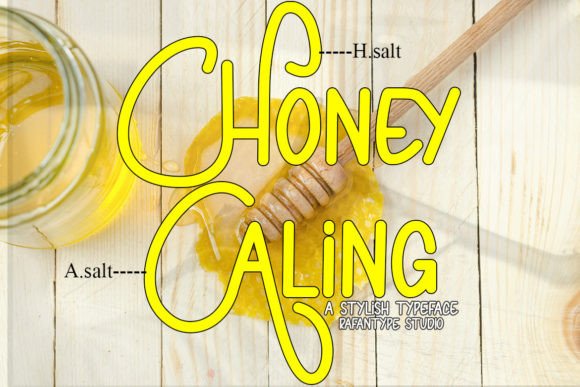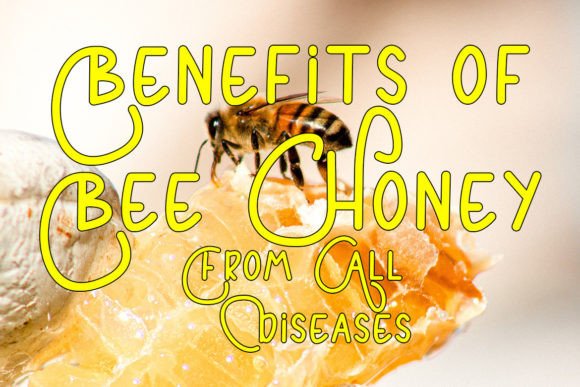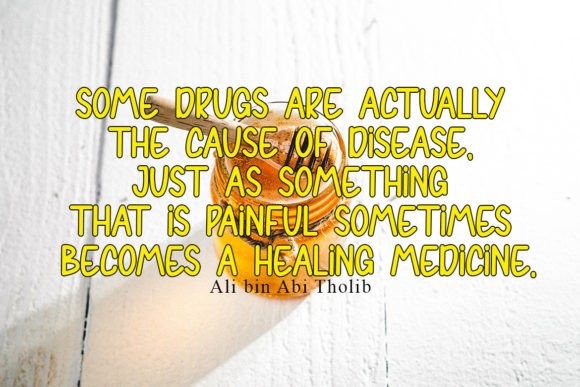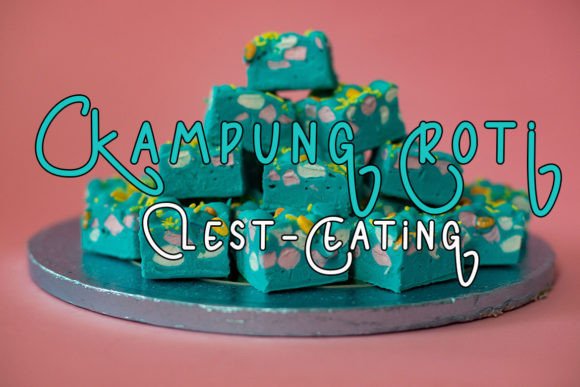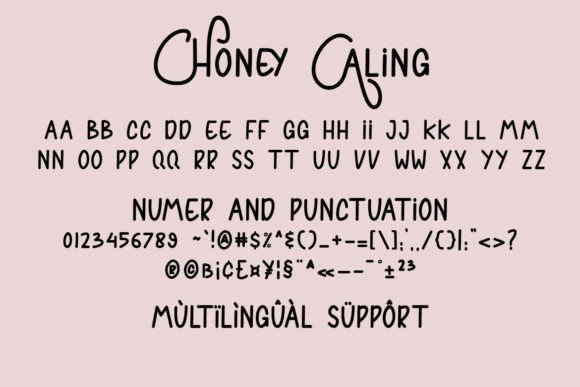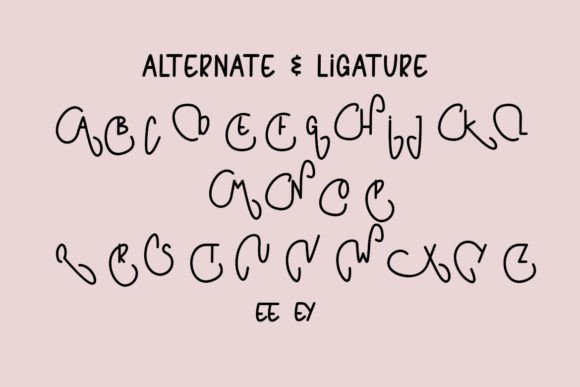
Introduction to Honey Aling Font
Have you ever been working on a creative project, pouring your heart and soul into it, only to feel like something is missing? That’s when I discovered the Honey Aling Font, and I knew I had found the perfect design resource to elevate my work.
This fun and quirky display font is more than just a pretty face – it’s a game-changer for designers looking to add a touch of whimsy and personality to their high-quality designs. With its transparent background and unique swirls around the characters, Honey Aling Font is sure to generate a unique outcome that sets your project apart from the rest.
Key Features of Honey Aling Font
- High-quality design resource suitable for various creative projects, including logos, branding, and typography.
- Comes in a transparent background, making it easy to customize and integrate into any design.
- Designed with a unique, modern aesthetic, making it an excellent choice for contemporary creative projects.
- Features a clear and legible design, ideal for use in a variety of contexts, from print to digital media.
Honest Review: Honey Aling Font
I recently stumbled upon the Honey Aling Font while searching for a high-quality design resource for my next creative project. I was excited to try it out and see if it would meet my expectations.
What works well: ✨ The font is incredibly versatile, making it perfect for a variety of design applications. I particularly love the elegant and modern feel it brings to my designs. Additionally, the transparent background option is a huge plus, allowing for seamless integration with any design element.
What could be improved: ⚠️ The font family is relatively small, with only a few weights and styles available. This might limit its use in more complex design projects that require a wider range of font options.
Overall impression: I’m really impressed with the Honey Aling Font and would highly recommend it to designers looking for a high-quality, free download for their next creative project. Its versatility, elegant feel, and transparent background option make it a valuable addition to any design arsenal.
Pros and Cons:
- ✨ Versatile and modern design
- ✨ Transparent background option
- ⚠️ Limited font family (only a few weights and styles)
Tips for Getting the Most Out of Honey Aling Font
For a creative project, use Honey Aling Font in combination with other design elements, such as images or shapes. Experiment with different font sizes and colors to create visual interest. To ensure a high-quality design, use a high-resolution image or shape with a transparent background.
Honey Aling Font is a versatile design resource suitable for various creative projects, including logos, brochures, and social media graphics. Its transparent background makes it ideal for use with images or shapes, allowing for a seamless design experience.